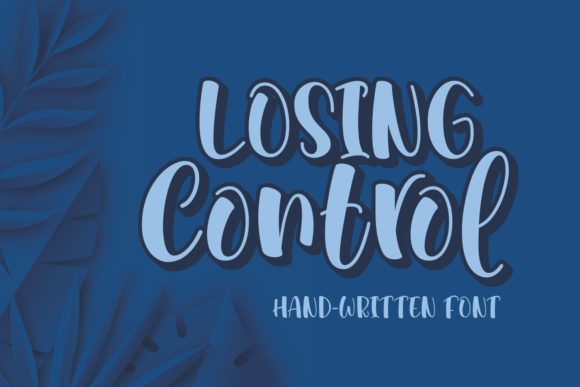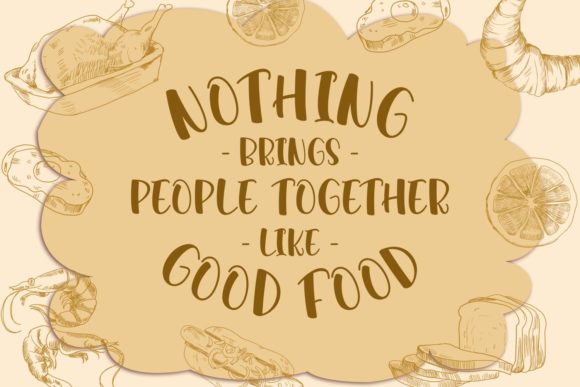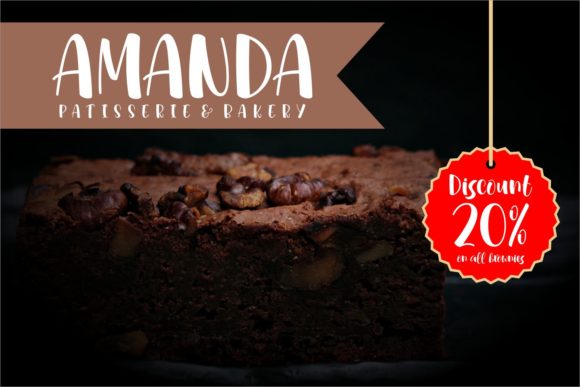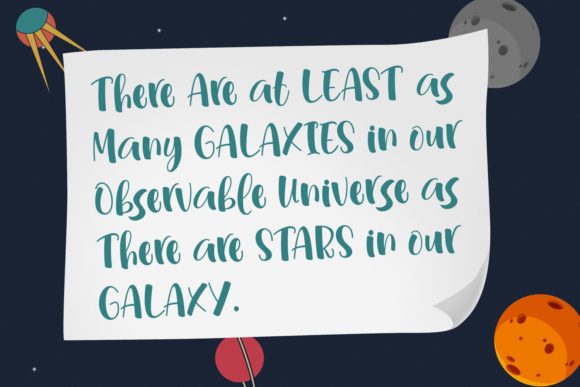
Losing Control Font
About Losing Control Font
Losing Control is a magical handwritten font carefully created with a touch of elegance. This is a beautiful combination of timeless elegance and authentic calligraphy. It features an incredibly classic style, while still keeping a friendly feel. Losing Control is the perfect font for making original and outstanding designs and it will elevate a wide range of design projects to the highest level, be it branding, headings, wedding designs, invitations, signatures, logos, labels, and much more!